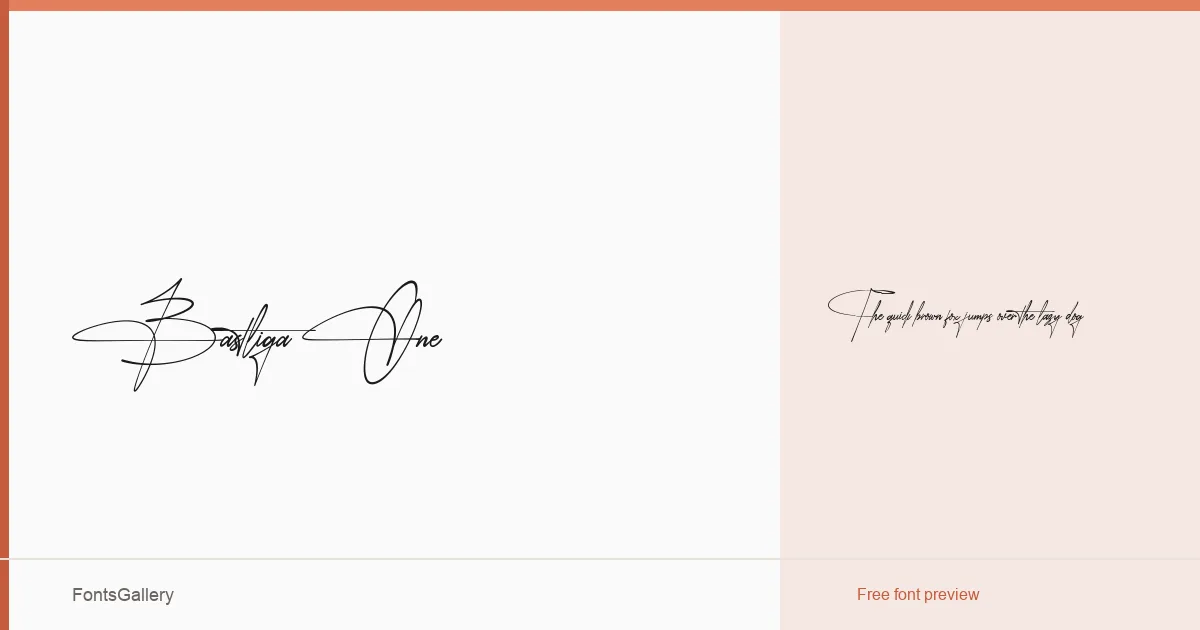
About Bastliga One Font
Bastliga One is an elegant script typeface that exudes luxury, romance, and timeless classic charm. Its flowing letterforms make it a distinguished choice for projects that demand sophistication and refinement. This typeface carries a graceful presence that immediately elevates any design it touches.
Bastliga One features the sweeping, connected strokes characteristic of refined script typography, evoking a sense of romance and classical elegance. Its letterforms balance ornate detail with fluid movement, creating a luxurious aesthetic that feels both traditional and beautifully crafted. The generous curves and expressive style give each character a distinct, handcrafted quality.
Bastliga One is ideally suited for logos, wedding stationery, invitation cards, branding projects, and certificates where an elegant, upscale impression is essential. Its romantic and classic character makes it especially compelling for luxury brand identities and formal event materials. For a striking typographic combination, consider pairing Bastliga One with Aresink for a harmonious script-forward layout, or with Helvetica to create an elegant contrast between expressive script and clean sans-serif type.